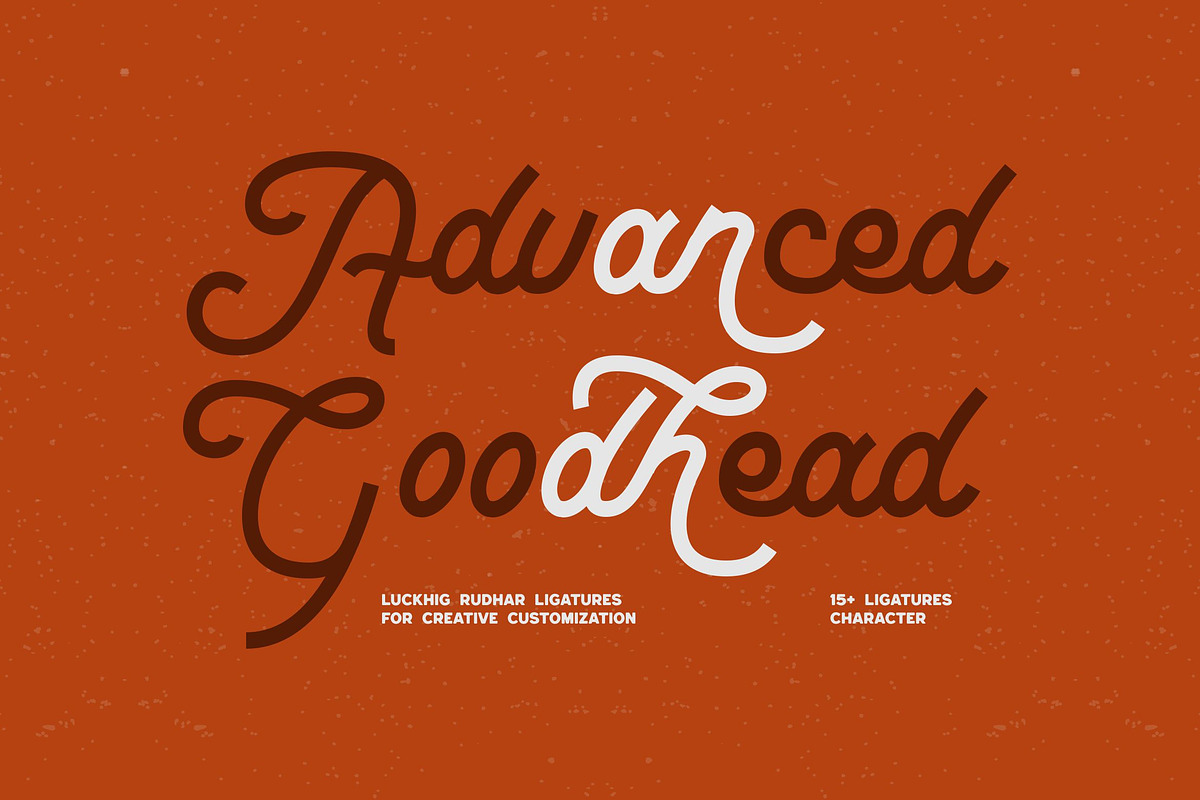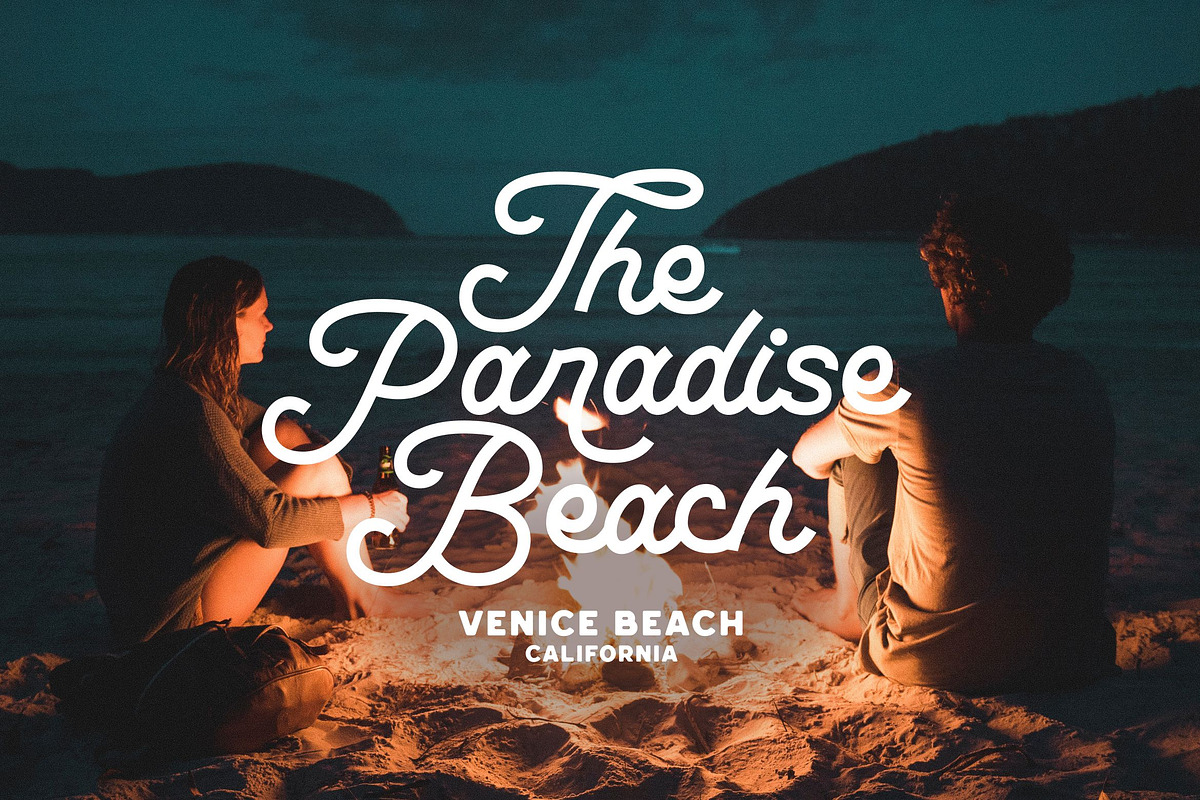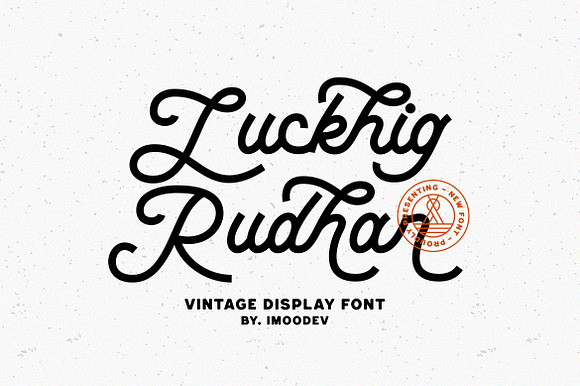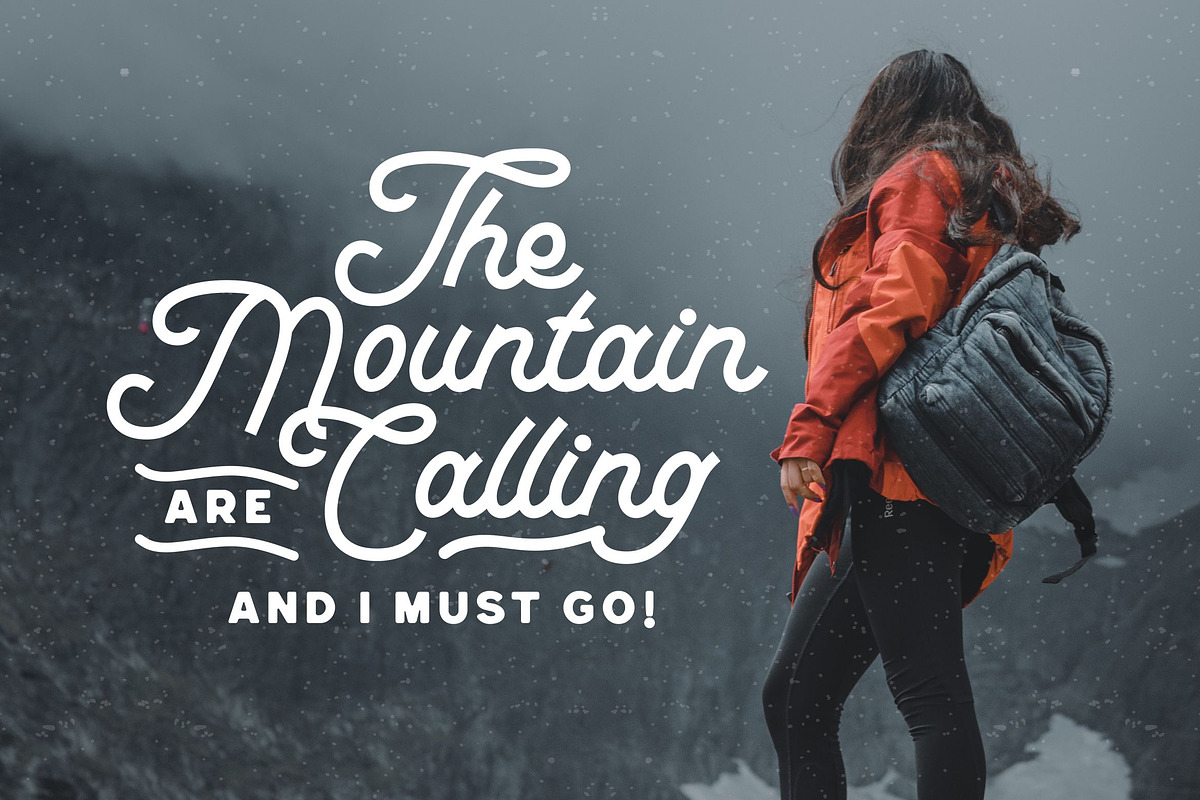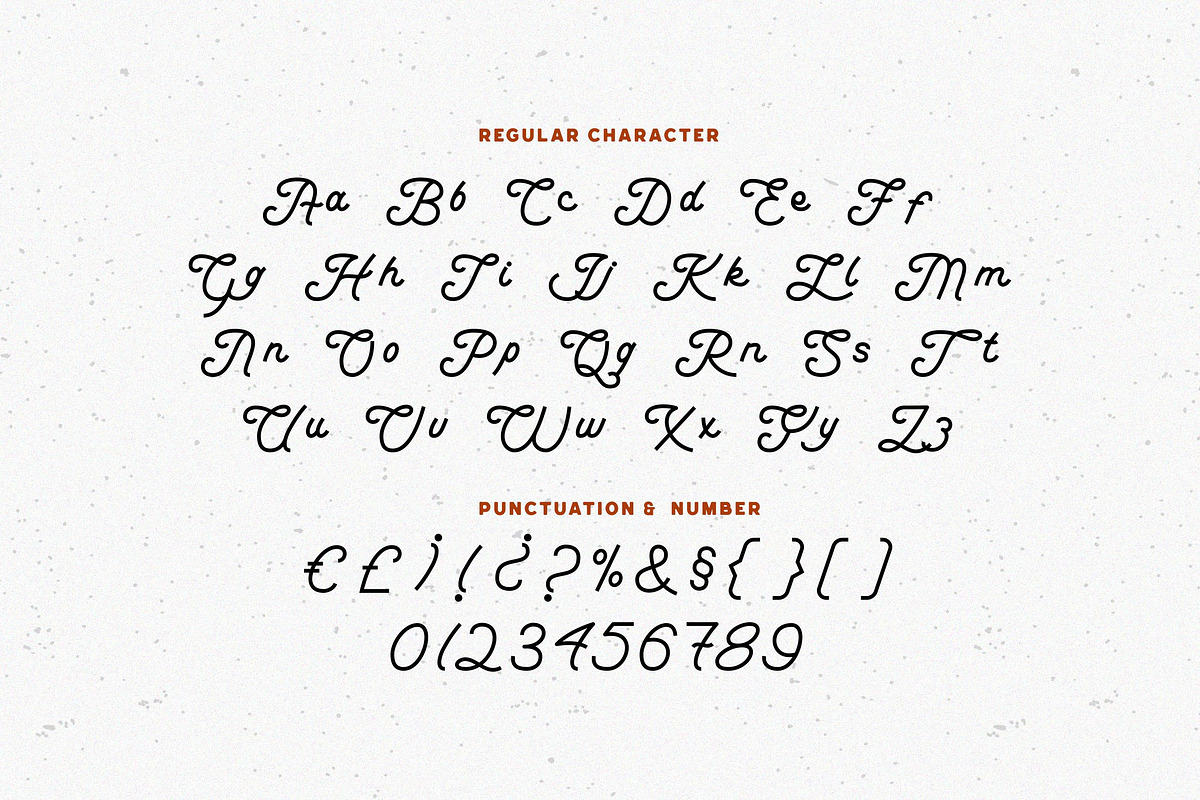
Luckhig Rudhar - Retro Script Font
Introducing Luckhig Rudhar a retro script font which will bring you back to 60s feel. This typeface has the extrude version so you can create your retro effect font in ease.
This font perfectly made to be applied especially in wedding card, clothing brand logo, vintage design, labels, heading, poster, books, packaging, stationery, adventure and outdoor design themes, or any type of advertising purpose.
Uppercase and Lowercase
Punctuation, Alternates and, Ligatures